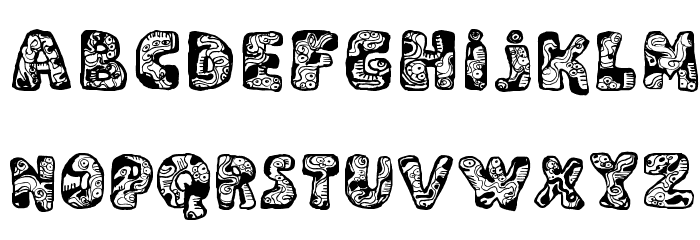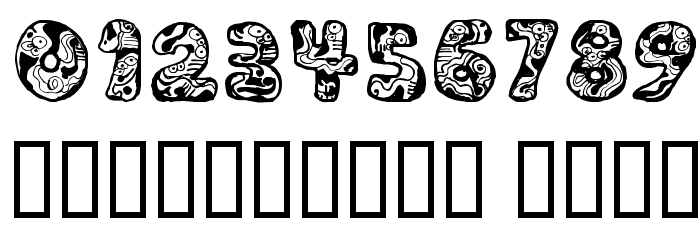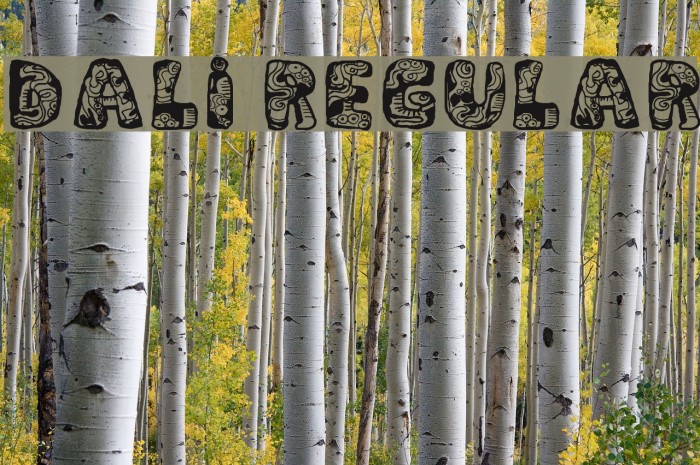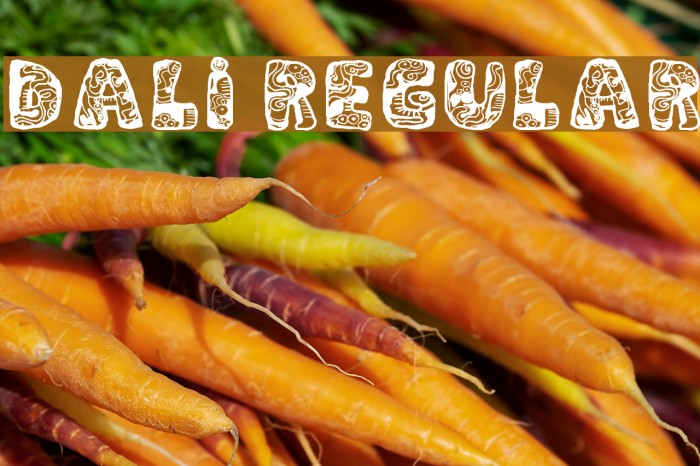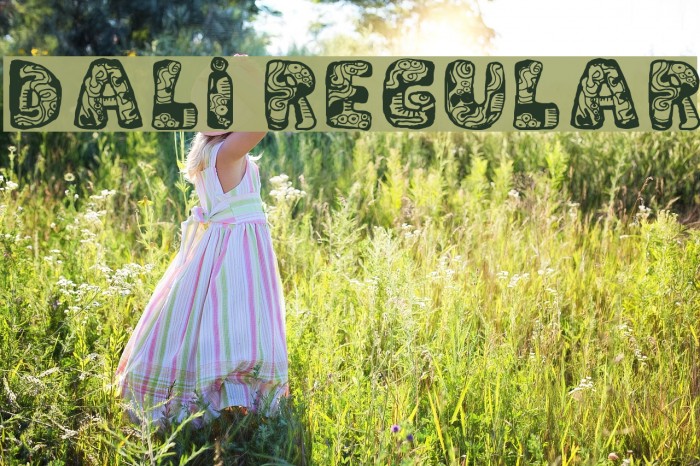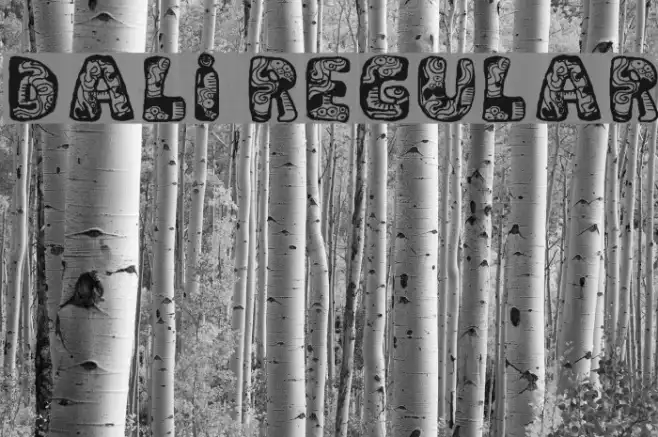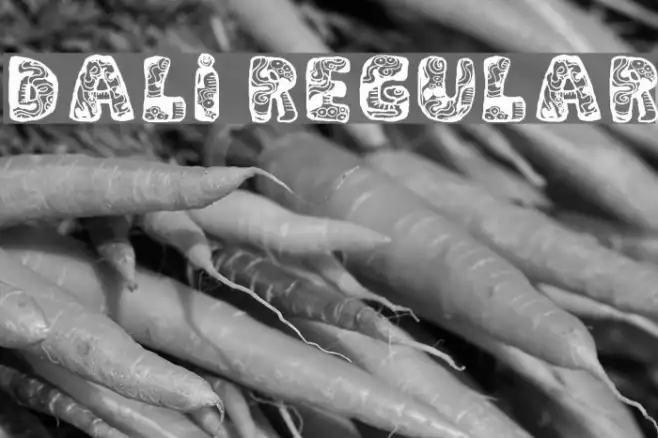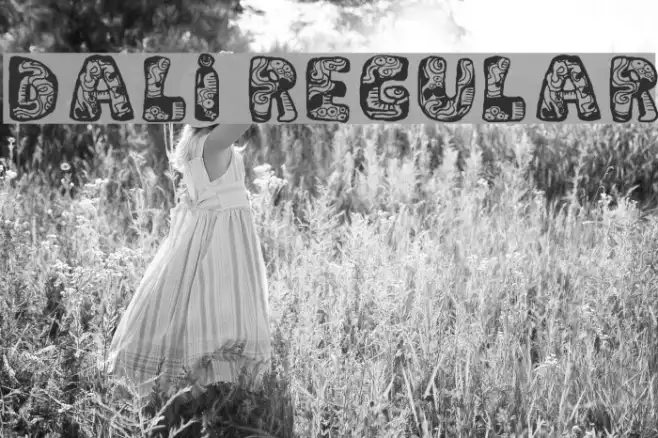
Dali Regular Font
This font is a highly decorative and artistic typeface, featuring intricate patterns and whimsical designs within each character. The letters are bold and filled with abstract shapes, swirls, and motifs that give it a playful and surreal appearance. The overall style is reminiscent of artistic movements that embrace creativity and imagination, making it stand out as a unique and eye-catching choice. The characters are well-defined and maintain a consistent style throughout, with a strong emphasis on visual interest and complexity.
A decorative and artistic font with intricate patterns and whimsical designs.
- Proposed Projects: Ideal for creative projects such as posters, album covers, children's books, and artistic branding.
- Use Case: Logos, Headlines, Artistic projects